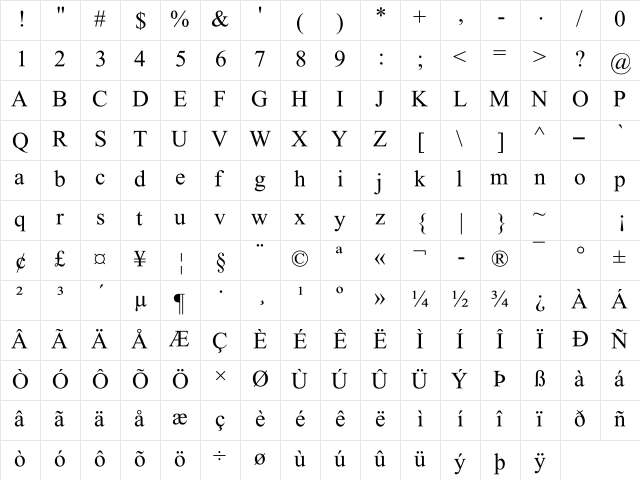
UKIJ Tuz Kitab Regular
| Foundry | Uyghur Computer Science Association |
| Designer | Tursunjan Sultan (alp) |
Design Context for UKIJ Tuz Kitab Typeface
UKIJ Tuz Kitab is a composed and adaptable typeface that performs quietly and consistently across a wide range of design contexts.